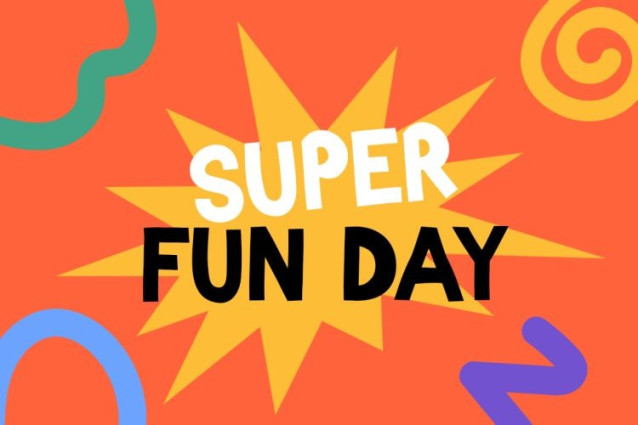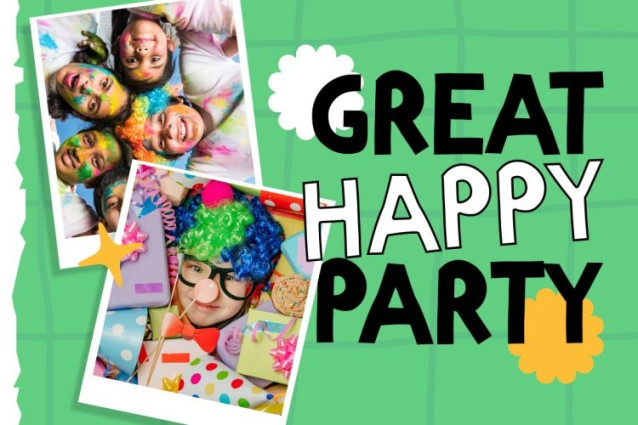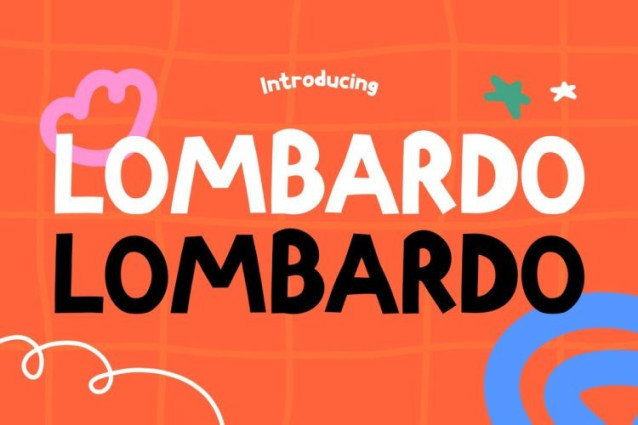
Lombardo Display Font
Lombardo Display Font is a bold and playful typeface designed to make kids-themed designs stand out instantly. At first glance, its thick, rounded letterforms and strong shapes create a fun and confident visual impact. Moreover, the clean yet quirky style gives it a modern cartoon-like feel that is both eye-catching and easy to read. Because of its bold structure, every word feels energetic and full of personality. In addition, the font pairs perfectly with bright colors, fun layouts, and playful graphics. As a result, Lombardo delivers a lively and engaging look that works great for attention-grabbing headlines and cheerful designs.
Lombardo is a dynamic display font built to bring excitement and joy into creative projects. Not only does it feature bold and friendly letterforms, but it also creates a strong visual presence that makes text pop. Furthermore, the smooth curves and balanced spacing ensure readability across different formats. Therefore, whether you are working on digital designs or print materials, Lombardo adds a vibrant and modern touch. Ultimately, it transforms simple text into bold, fun visuals that instantly attract attention.